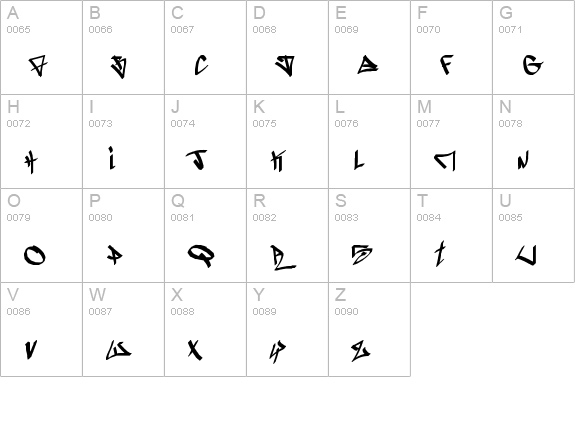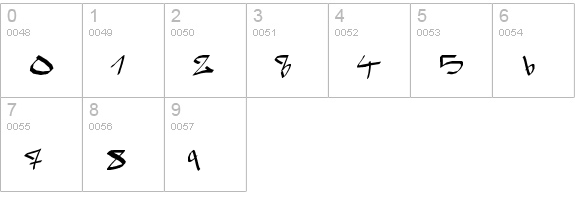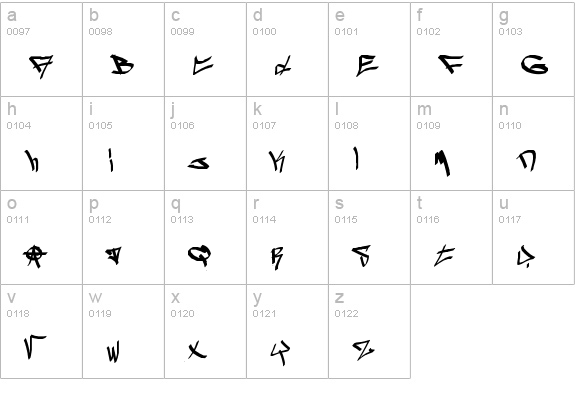
ghetto-blasterz Font Details
Introducing the vibrant and dynamic Ghetto-Blasterz font! This bold and eye-catching typeface is perfect for making a statement with your designs. With its edgy and urban style, Ghetto-Blasterz is sure to grab attention and add a touch of street flair to any project. Best of all, this unique font is available for free download at FontsMarket.com. Whether you're working on a poster, flyer, logo, or any other creative project, Ghetto-Blasterz is the perfect choice to give your design that extra edge. Download it today and let your creativity shine with this one-of-a-kind font!